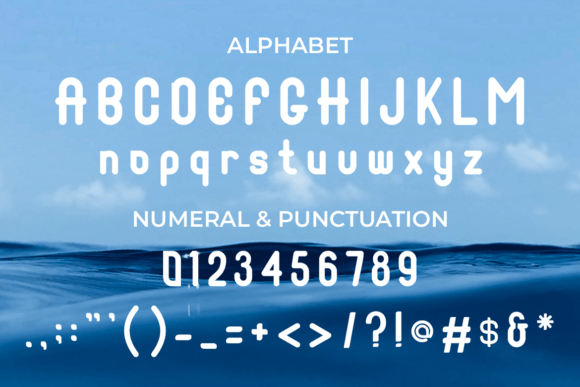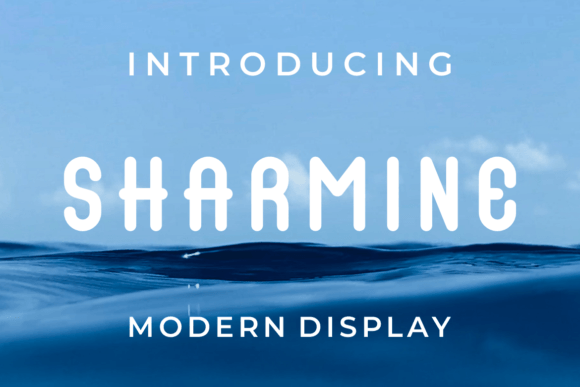
Introduction to Sharmine Font
Sharmine is a fun and friendly display font.
Trendy and stylish, this font will elevate each of your creations .
Why Choose Sharmine Font?
Sharmine Font offers exceptional quality and versatility, making it a valuable addition to your design toolkit. Whether you’re creating for personal projects or commercial use, Sharmine Font delivers professional results.